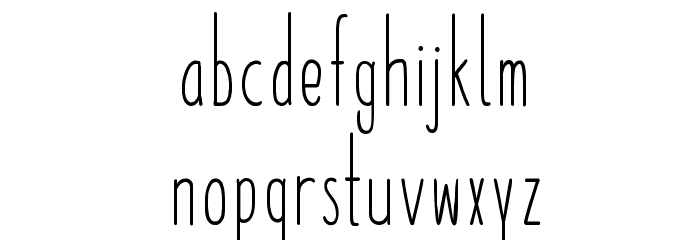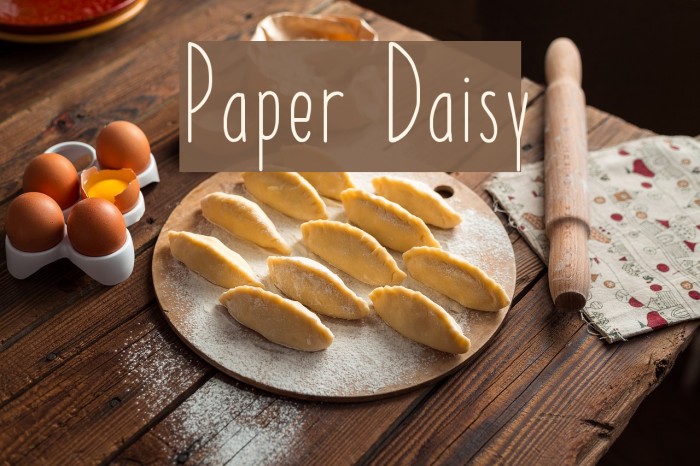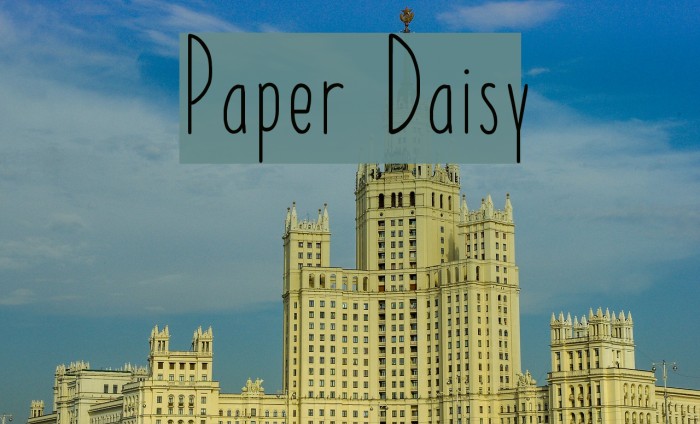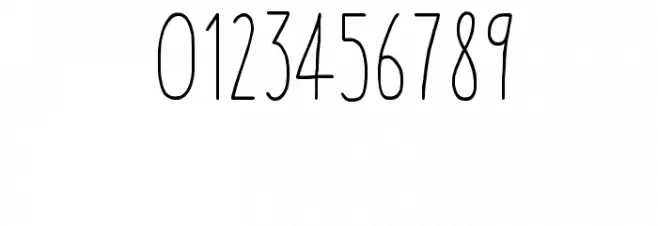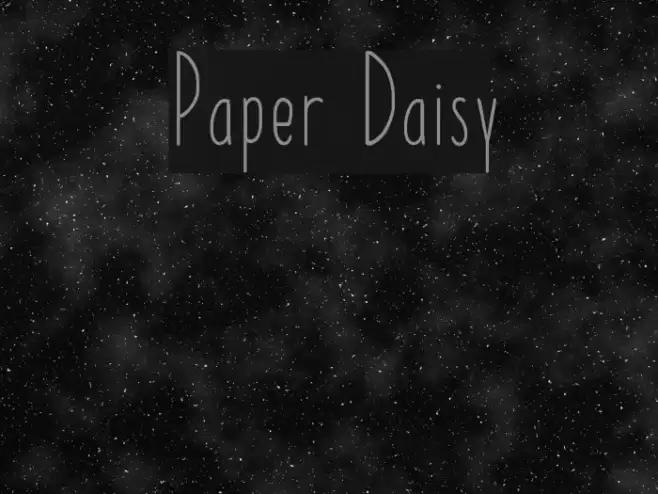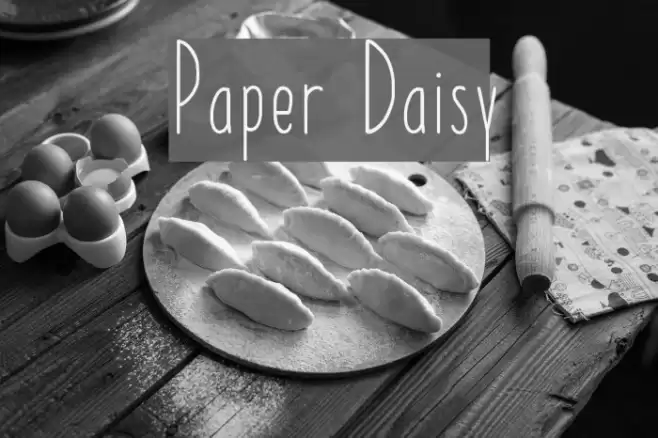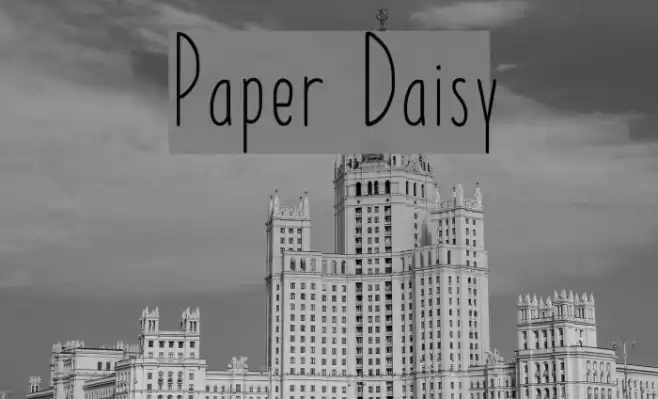
Paper Daisy Font
This font features a tall, slender design with a playful and whimsical character. The letters are elongated with a slight curve, giving them a friendly and approachable appearance. The strokes are consistent in width, providing a clean and modern look. The font maintains a sense of elegance while being informal, making it versatile for various design needs. Its simplicity and charm make it suitable for creative projects that require a touch of personality.
A tall, slender, and playful font with a modern and whimsical style.
- Font: Paper Daisy
- Proposed Projects: Ideal for children's books, greeting cards, playful branding, and creative posters.
- Overall Style: Playful and Modern
- Use Case: Headlines, Logos, Creative projects